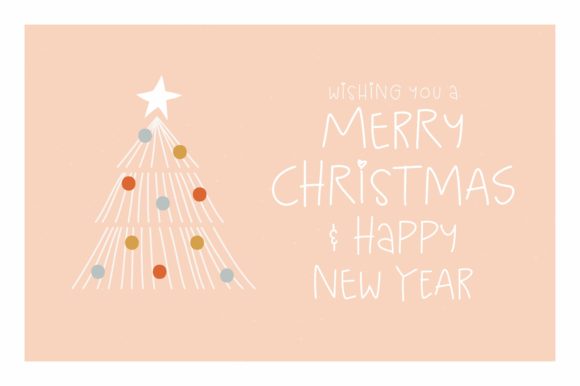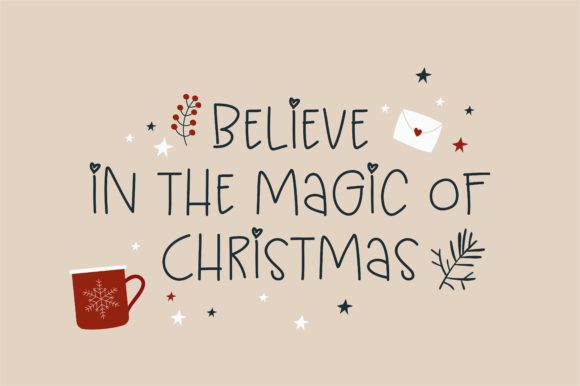
Enjoy Your Day Font
db-ku.com - Script & Handwritten -- Enjoy Your Day is a cute and skinny handwritten font. Its natural and unique style makes it incredibly fitting to a large pool of designs. The only limit is your imagination!